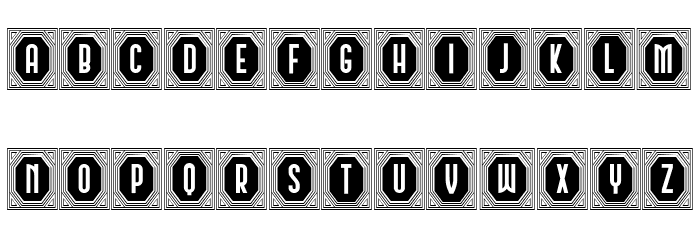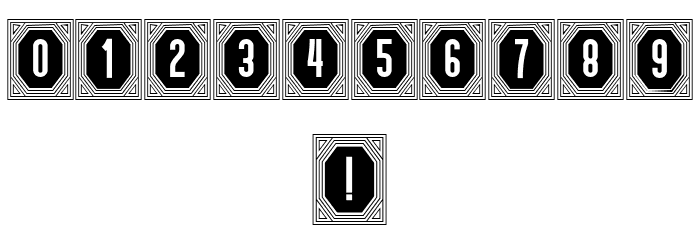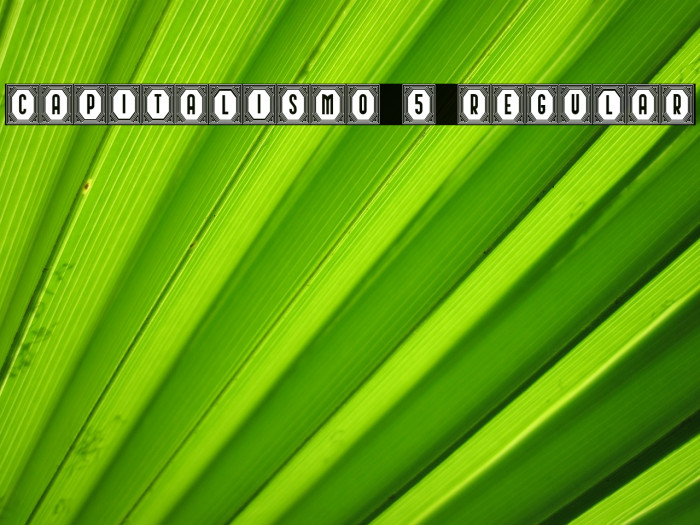
Capitalismo 5 Regular Font
This font features a bold, geometric design with each character enclosed in a decorative octagonal frame. The letters are uppercase and have a strong, impactful presence, making them ideal for attention-grabbing headlines or titles. The design is reminiscent of Art Deco styles, with intricate line work and a sense of symmetry and balance. The characters are evenly spaced within their frames, providing a uniform appearance across the set. The numbers and special characters follow the same stylistic approach, ensuring consistency throughout the font.
A bold, geometric font with Art Deco-inspired octagonal frames.
- Proposed Projects: Ideal for vintage-themed posters, branding, and signage that require a strong visual impact.
- Overall Style: Vintage